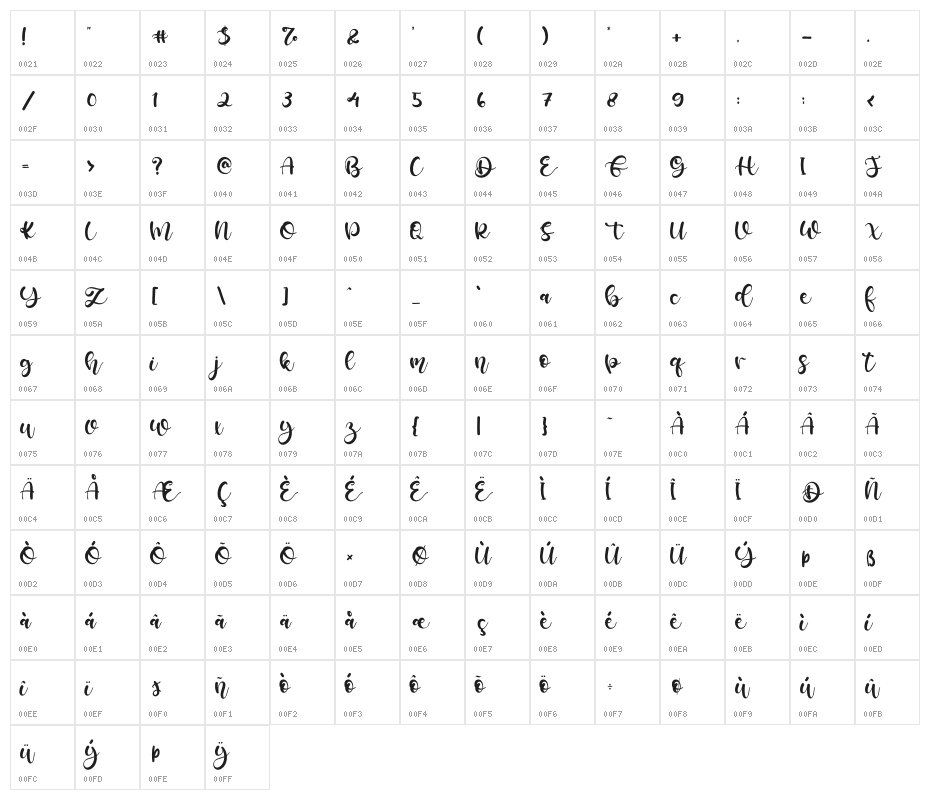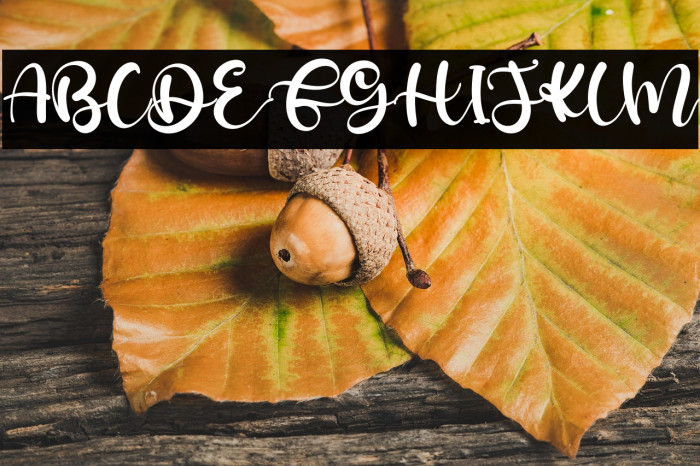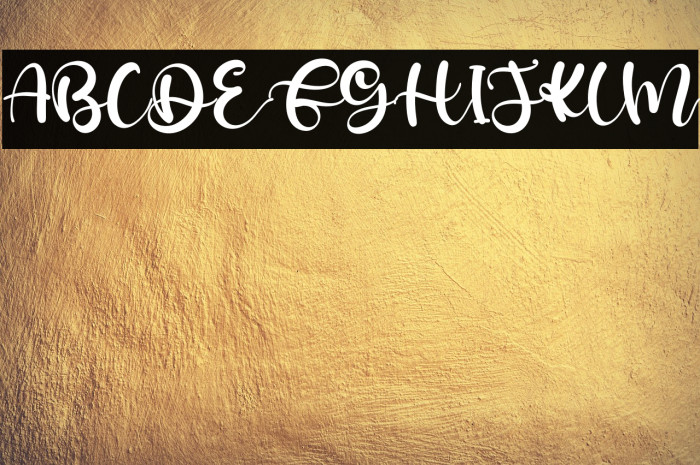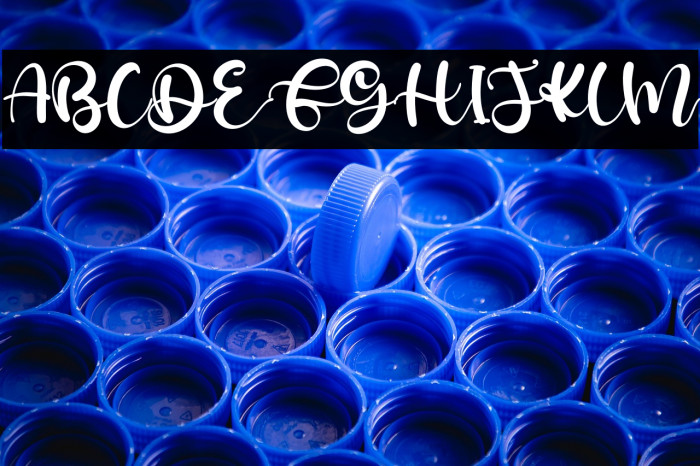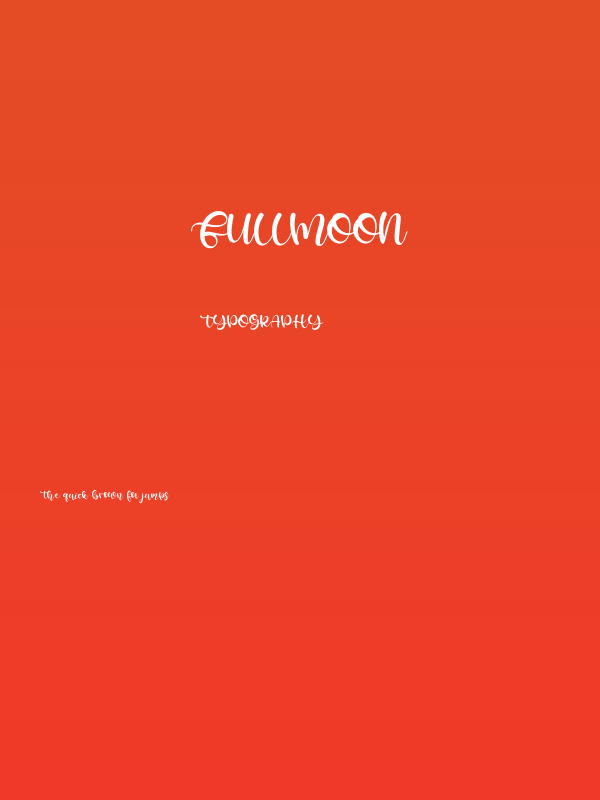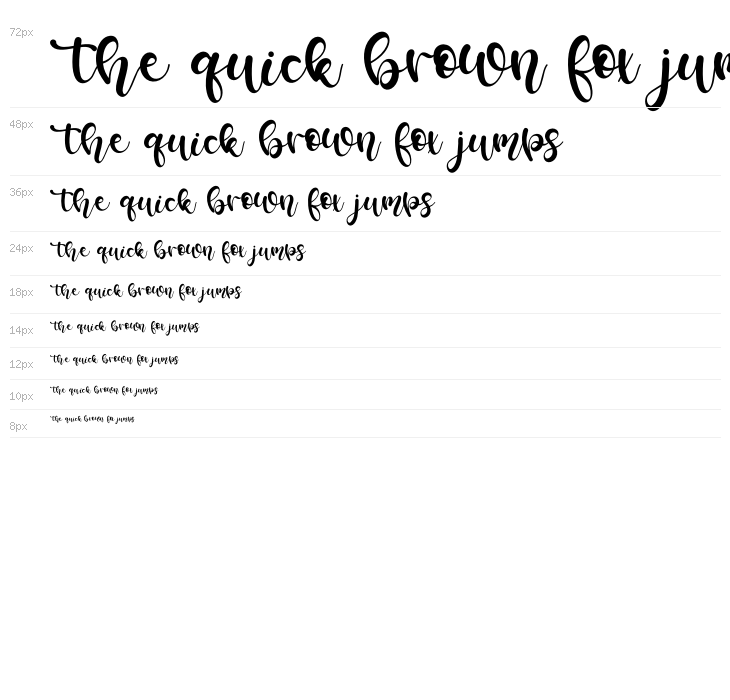
Fullmoon Font
Fullmoon Description
This font features a playful and artistic script style, characterized by its fluid, cursive strokes and elegant loops. The uppercase letters are bold and expressive, with a whimsical flair that adds personality to any text. The lowercase letters maintain a consistent flow, enhancing readability while preserving the font's artistic nature. Numbers and special characters are designed with the same attention to detail, ensuring a cohesive look across all elements. The font's overall appearance is both modern and decorative, making it suitable for a variety of creative projects.
| Use Case | Logos, Headlines, Invitations |
| Proposed Projects | Ideal for wedding invitations, greeting cards, branding, and decorative signage. |